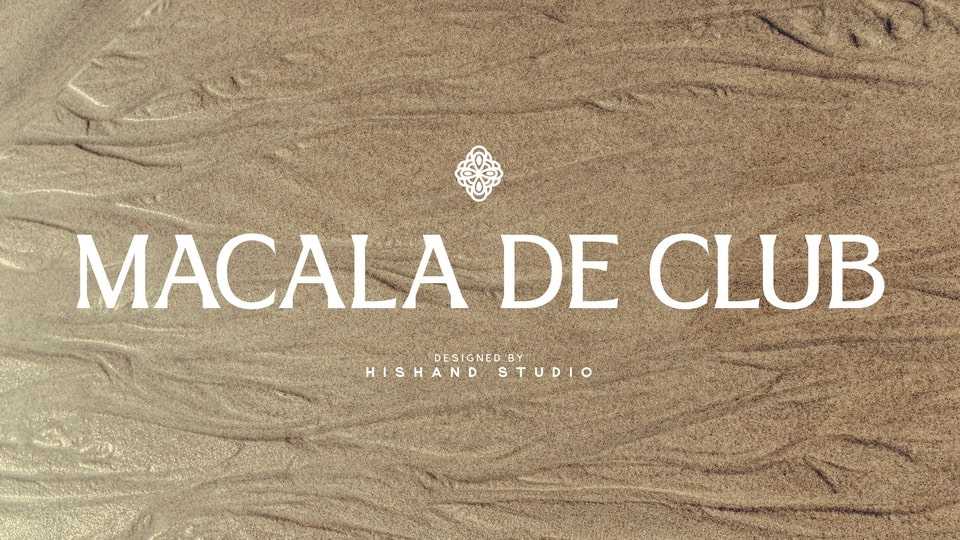
Download Macala De Club font, a stylish serif typeface that combines a classic feel with a modern twist. It features elegant, slightly dramatic letterforms that stand out without being too loud.